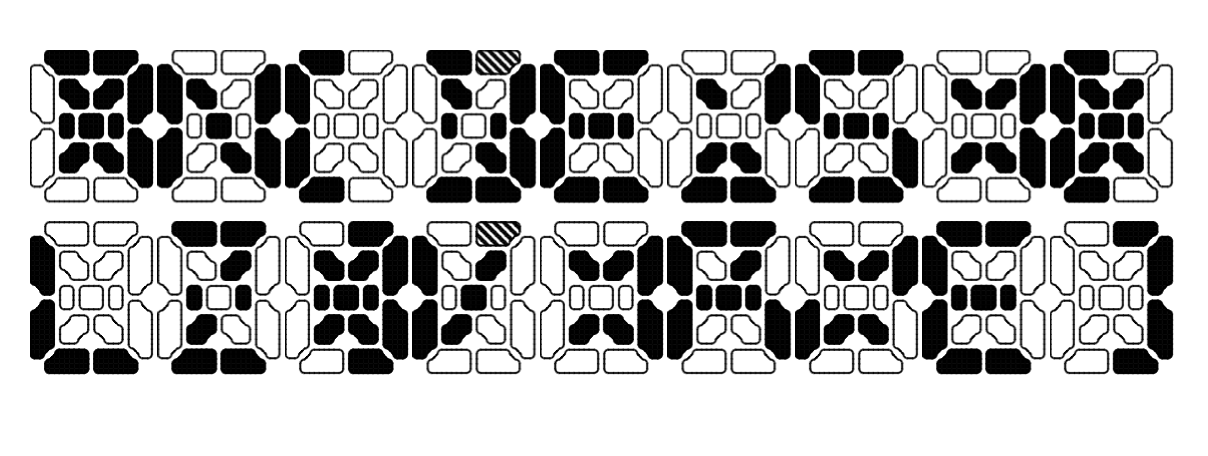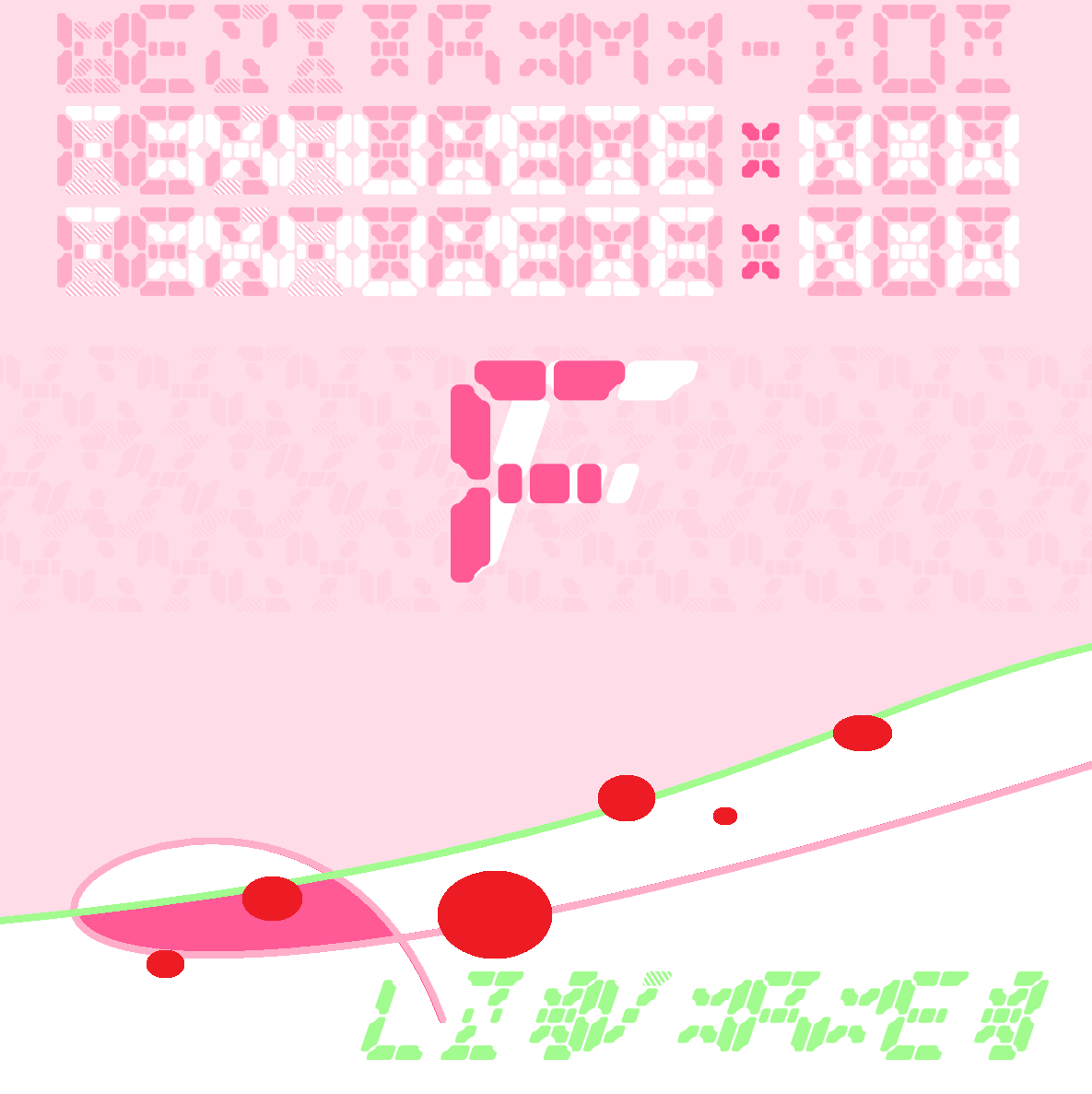
• LN(VERSE): A kind of "off" 15 segment display with two light levels. Capitals are an inverse of the lowercase. Inverted [] on (). Filled grid on $, half tone filled grid on #. The "Outlined" grid is on the ~, so you simply have to type it before the letter you want to have the outline on.
NOTE: I originally made most of the font with the "outline" baked in, but I thought it better to leave it optional so it could be more versitally used (especially if you stack them to create coloured versions). It was a little more work than I thought it would be, but in the end I'm happy with it, considering I made this on the little time I didn't have homework to do.
I have plans for better samples--but I will most likely wait till the weekend when I have actual free time, so for now this is the extent of the "Art" y'all are getting:
slightly better, about 30 minutes of work in Paint
Moved the outline character from the no-break-space to the ~, I was having problems with it not appearing in some of the programs I use (mainly MS paint)